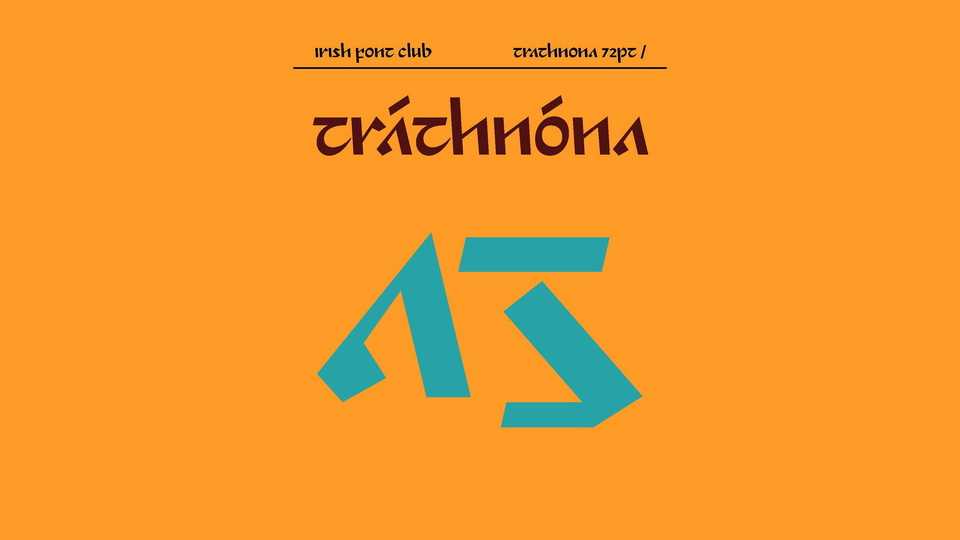
Download Trathnona font, a Gaelic half-uncial typeface inspired by the writing of scribe Fr Seán O Briain, 1738, from a collection of historical poems in the Royal Irish Academy.